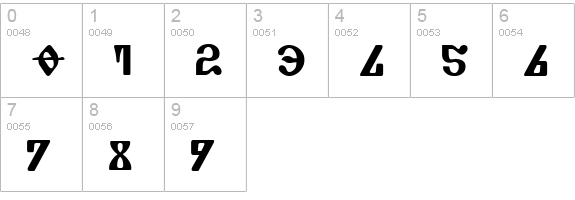
Piper Pie Bold is a strong, high-contrast variant in the Piper typeface family \xE2\x80\x94 well suited to headlines, attention-grabbing titles, and strong calls-to-action.
Piper Pie Bold font is a charming and versatile typeface with a touch of whimsy and personality. Its bold and rounded letterforms make it perfect for eye-catching headers, titles, and branding projects. The playful yet sophisticated design of Piper Pie Bold adds a delightful flair to any creative project. And the best part? Piper Pie Bold font is available for free download at FontsMarket.com. With its unique style and easy readability, this font is sure to elevate your designs and captivate your audience. Don't miss out on the opportunity to add this delightful typeface to your font collection today!